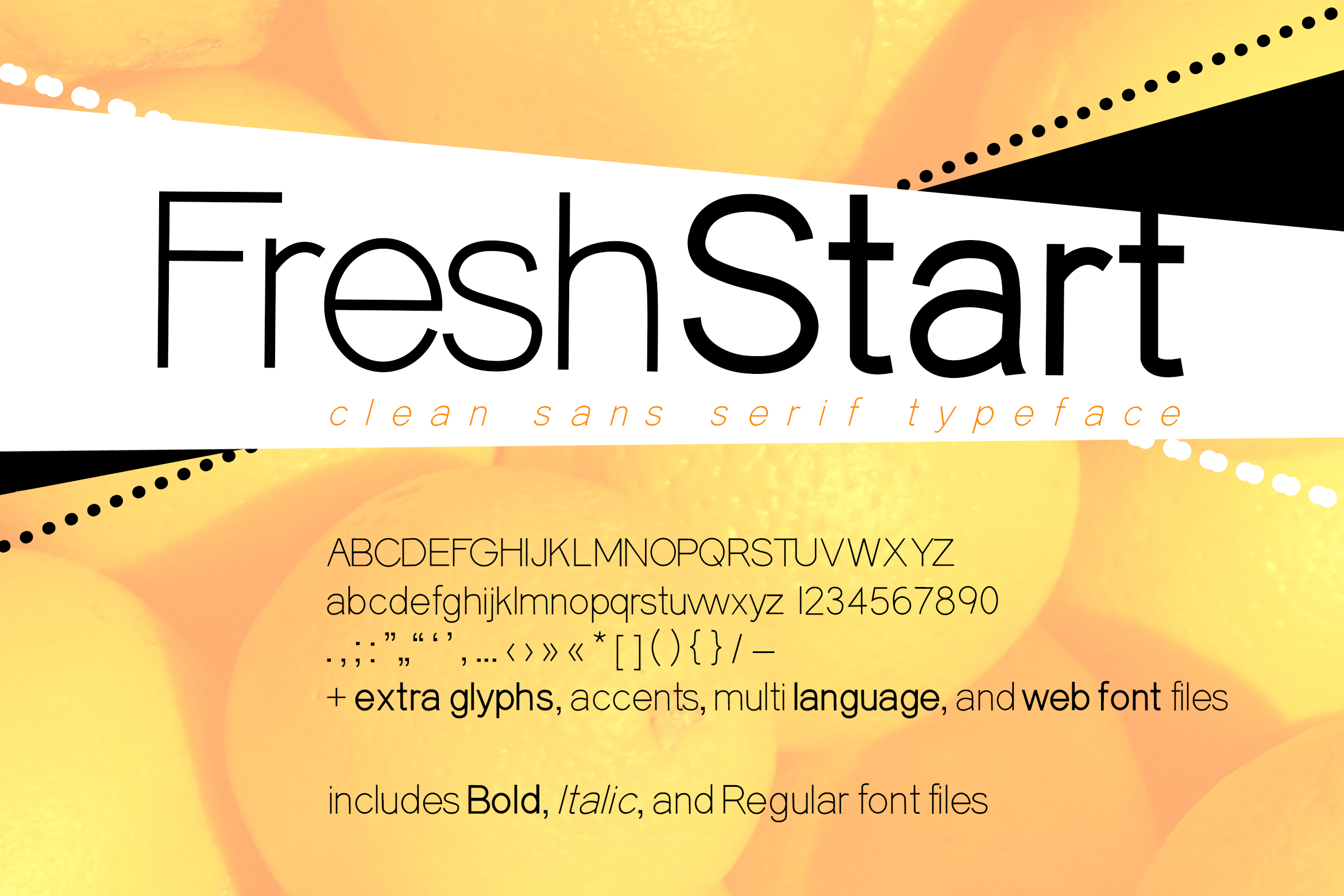
Introducing Fresh Start, clean sans serif font in three weights.
I wanted to create a sleek aesthetic font that would be versatile. It works well at both large and small sizes; this is a great choice if you’re looking for cool fonts for a modern look, or sleek fonts that have a clean aesthetic. I love a solid, geometric font, and grotesk font styles can have such a timeless charm. I hope you enjoy this minimalist font, and use it in many ways! Includes web fonts too!
I created each letter myself with vector tools. I was thinking about the future when I designed this font; I hope the future holds much happiness for all of us.